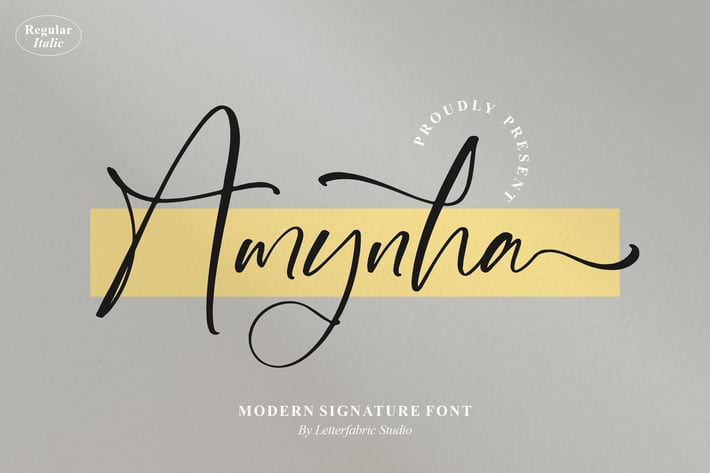
Amynha Signature Font
Amynha is a stylish modern signature font that blends smooth curves, thin strokes, and natural swashes—perfect for premium branding. With its handwritten elegance and graceful movement, this font elevates every design with a personal yet polished touch.
Comes in both Regular and Italic styles, along with full support for multilingual characters, swashes, and ligatures to help your brand or artwork stand out.
+ Regular & Italic versions
+ Swashes and ligatures
+ Multilingual support
Perfect for:
+ Personal Branding & Signature Logos
+ Fashion & Lifestyle Photography
+ Elegant Wedding Stationery
+ Feminine Business Cards
+ Stylish Social Media Quotes
Let your brand feel more personal and premium with Amynha.